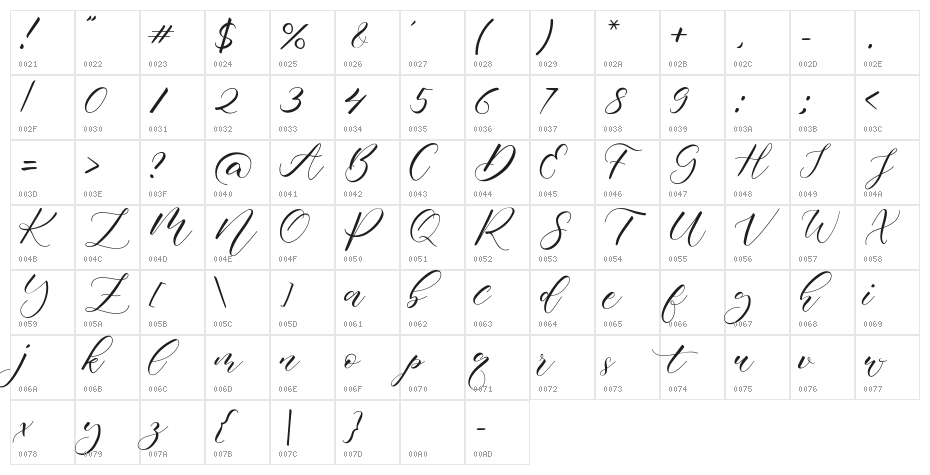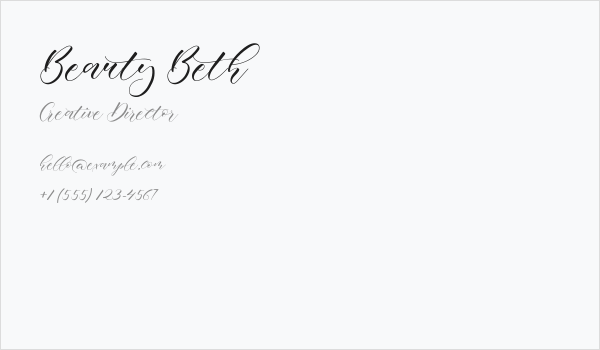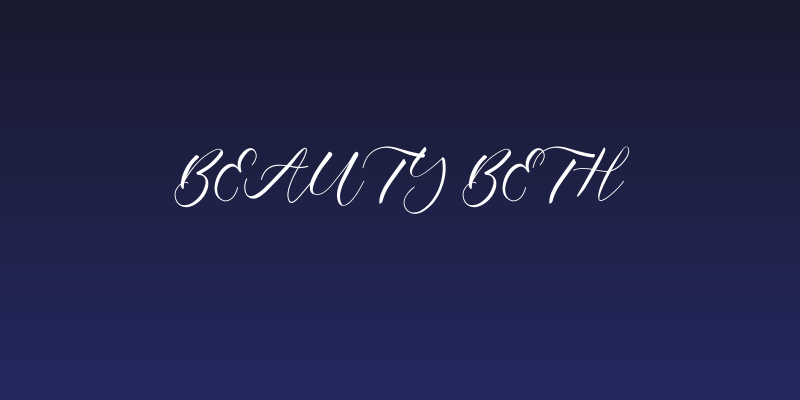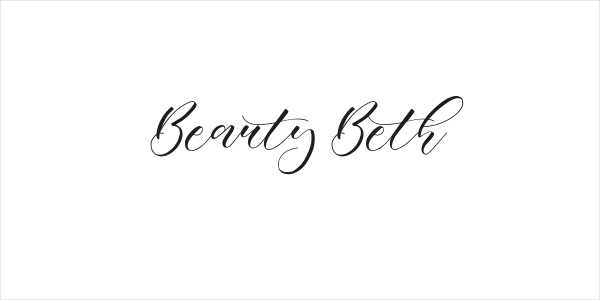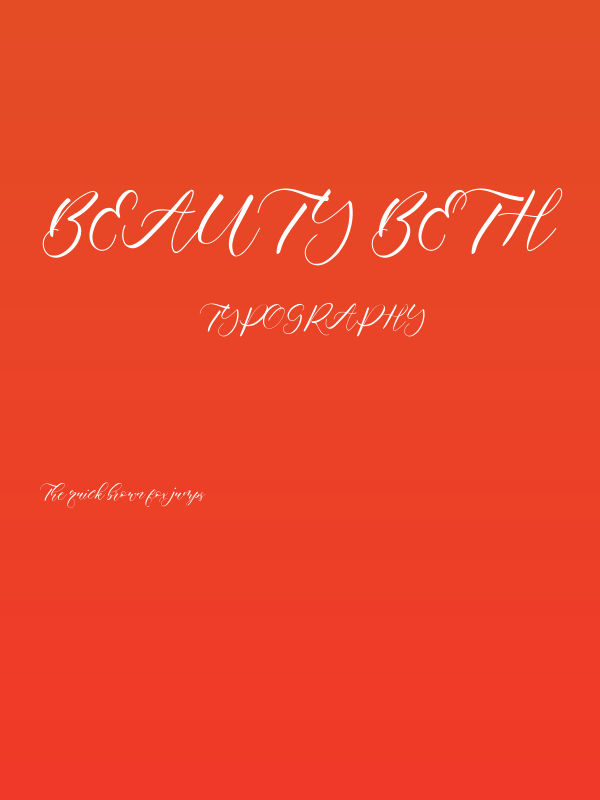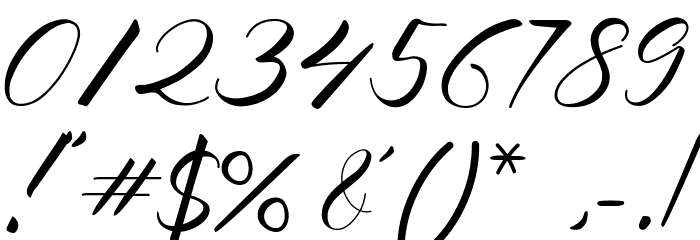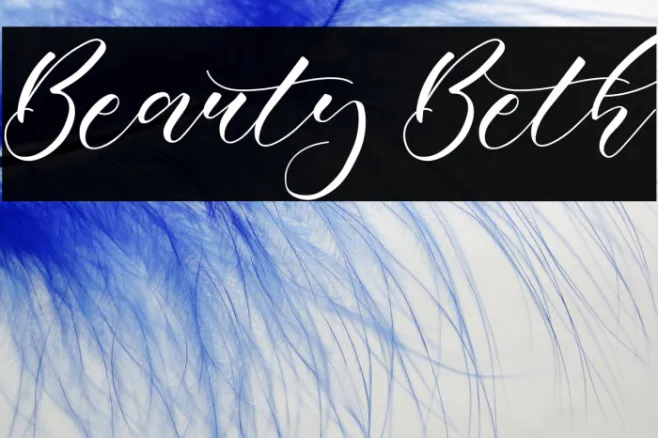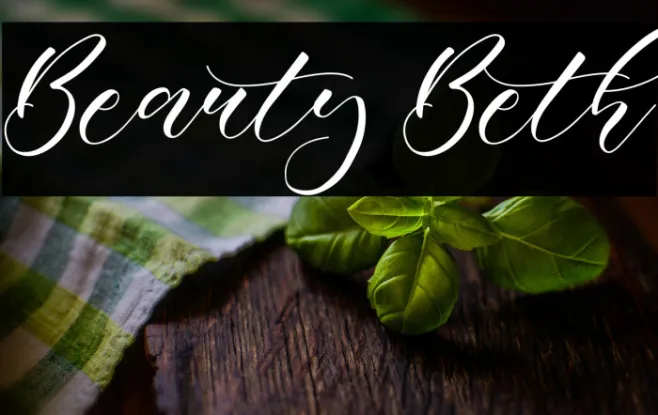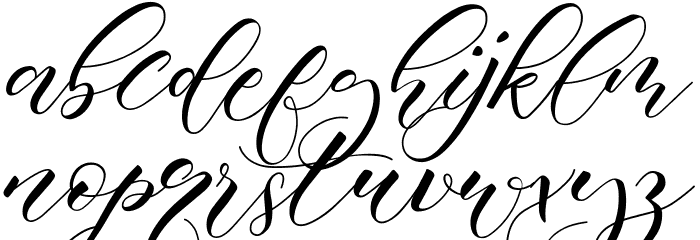
Beauty Beth Font
Beauty Beth Description
This font exudes elegance and sophistication with its flowing, cursive script style. Each letter is crafted with smooth, sweeping curves and delicate flourishes, giving it a graceful and artistic appearance. The uppercase letters are particularly ornate, featuring intricate loops and swashes that add a touch of luxury. The lowercase letters maintain a consistent style, with a slightly more restrained design that ensures readability while still offering a sense of fluidity. The numerals and special characters are designed to complement the letters, maintaining the same elegant aesthetic. This font is perfect for projects that require a touch of class and refinement.
| Proposed Projects | Ideal for wedding invitations, luxury branding, greeting cards, and elegant packaging designs. |